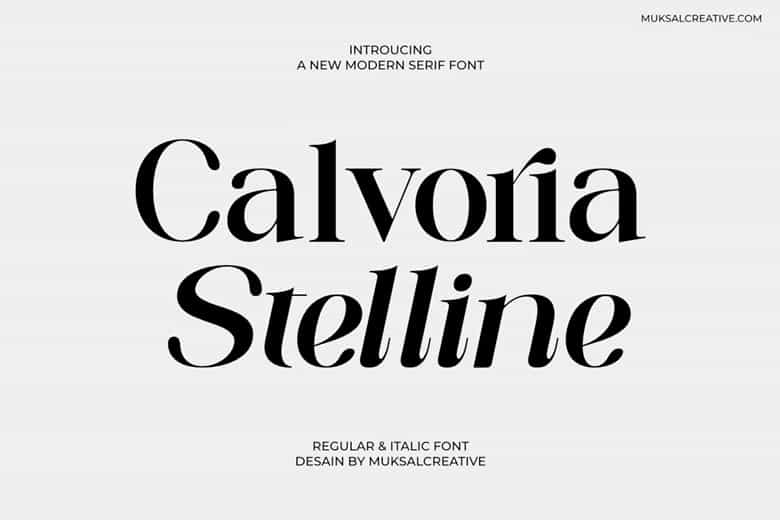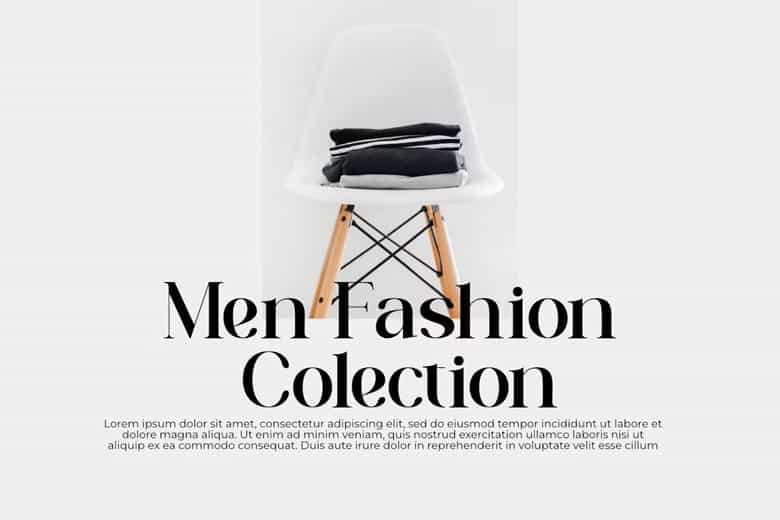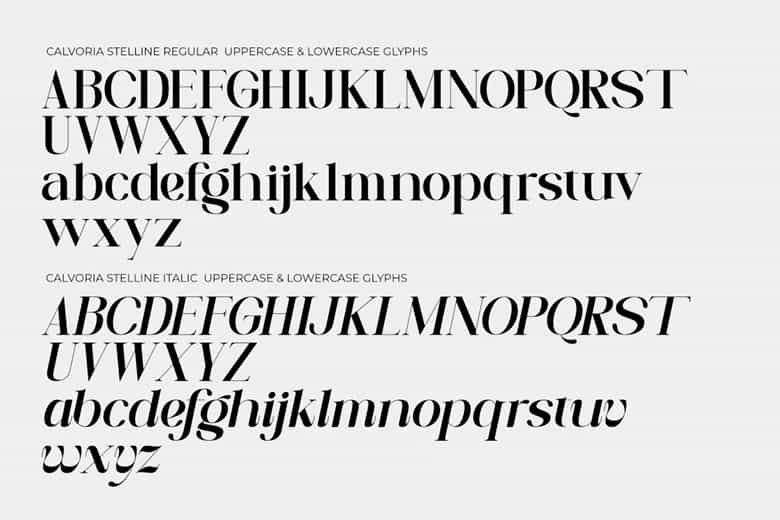
Calvoria Stelline is an elegant serif typeface that combines traditional nobility with modern minimum detail. Two styles, Regular and Italic, both with a smooth and harmonic design, are available, with balanced proportions, sharp details and graceful curves, suitable for designs that need to possess sophistication, clarity and charm.